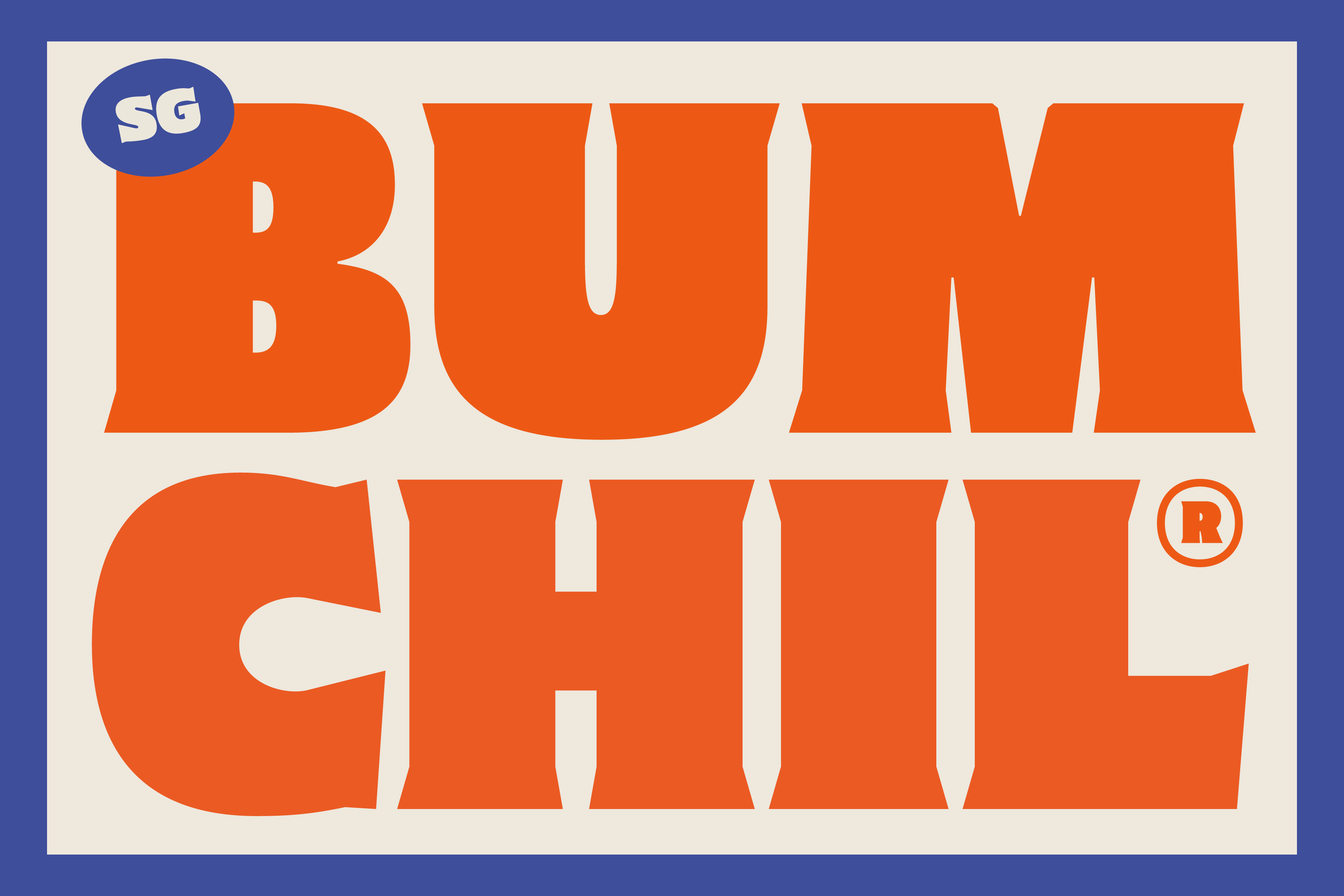
SG Bumchil DEMO Font
About SG Bumchil DEMO
Make a bold statement with SG-BUMCHIL, a display font bursting with personality! This versatile font offers a whopping 4 styles to choose from, giving you the flexibility to match your design vision perfectly.